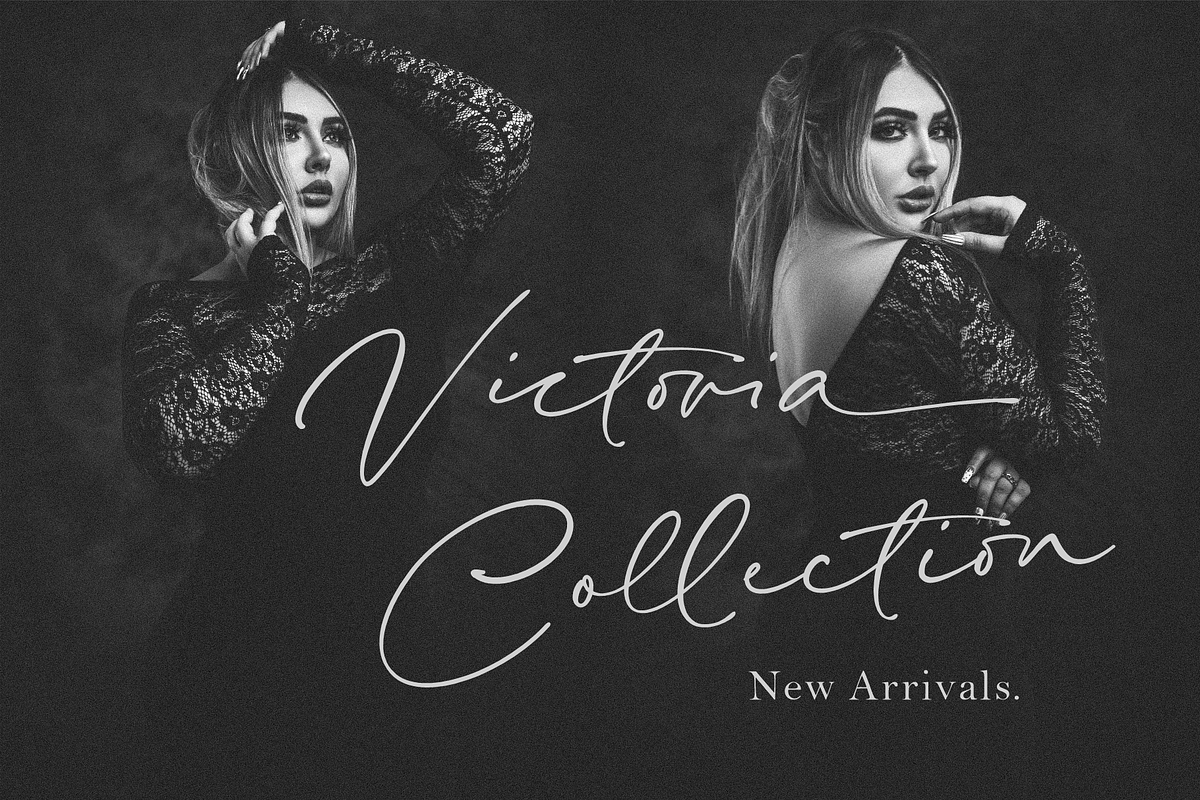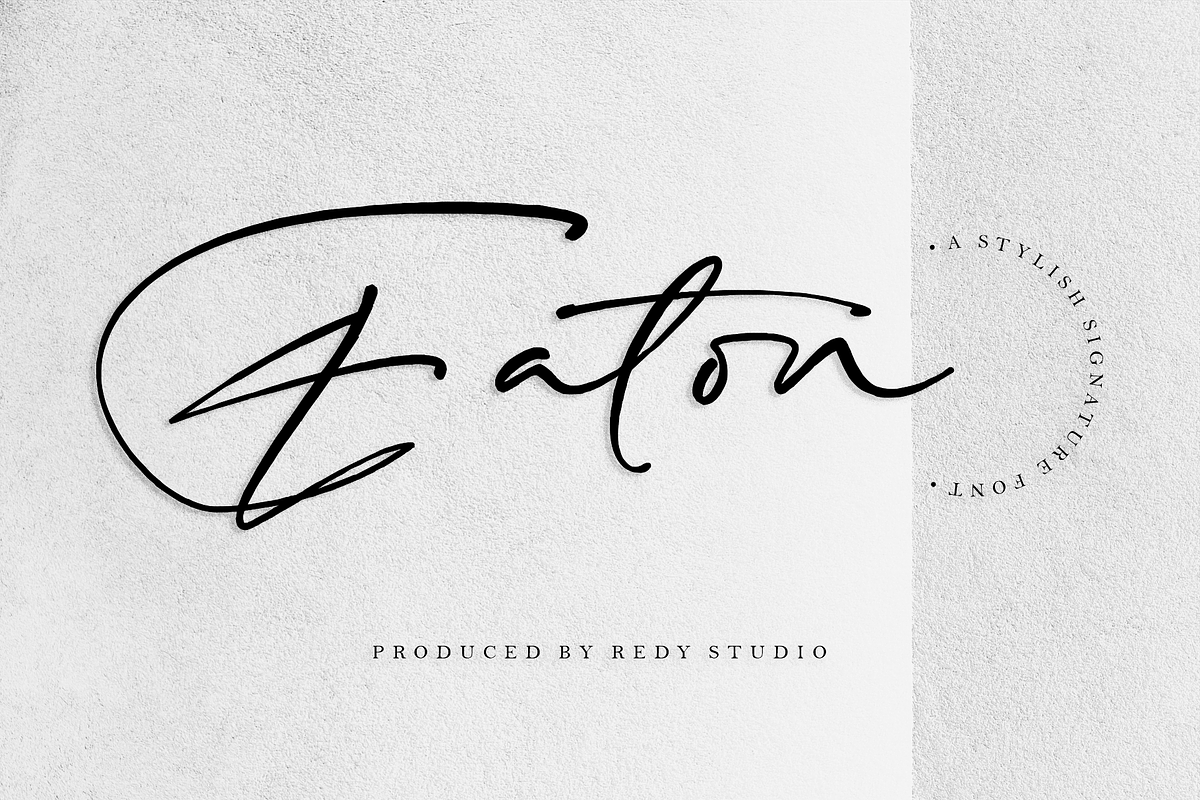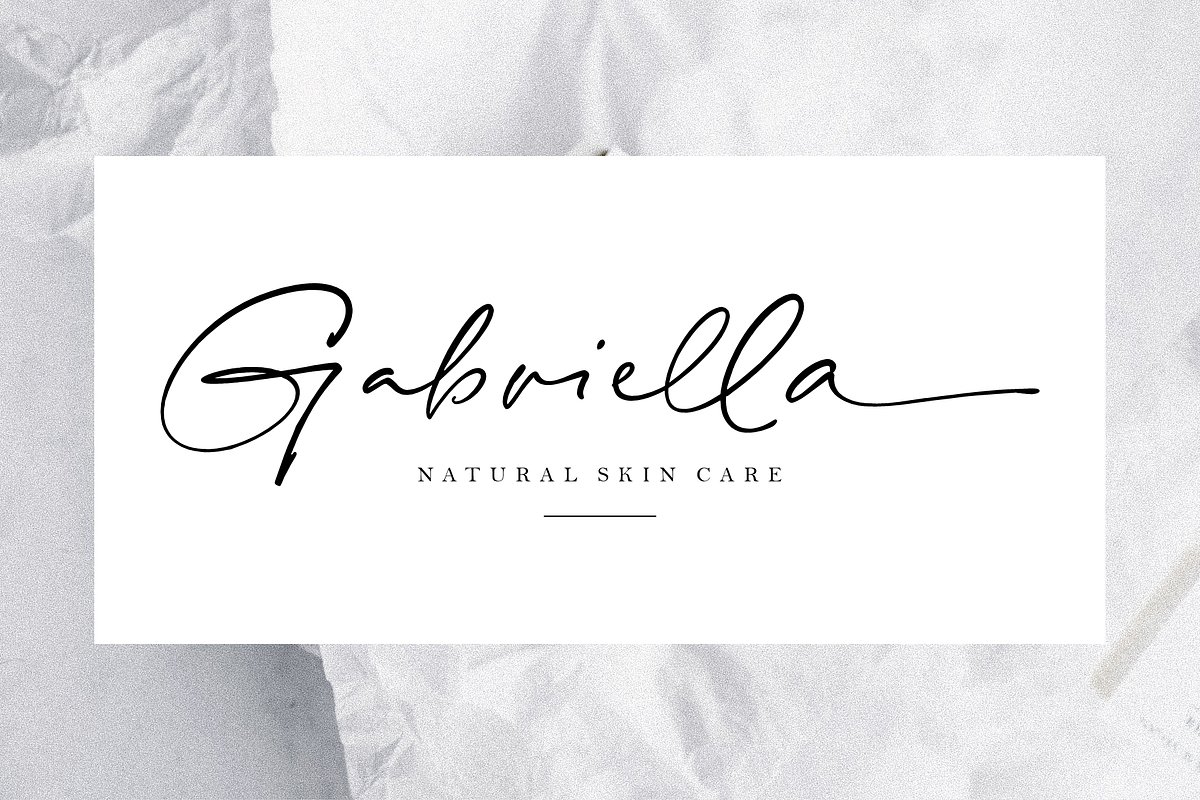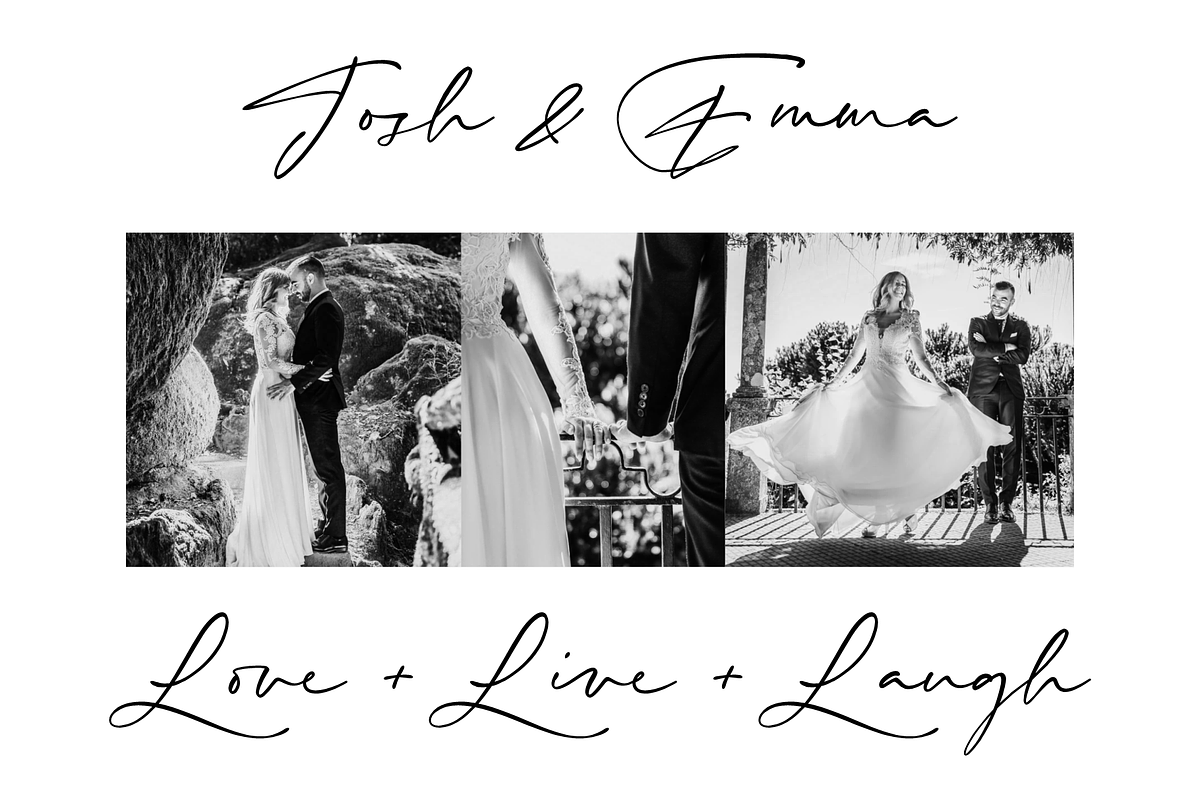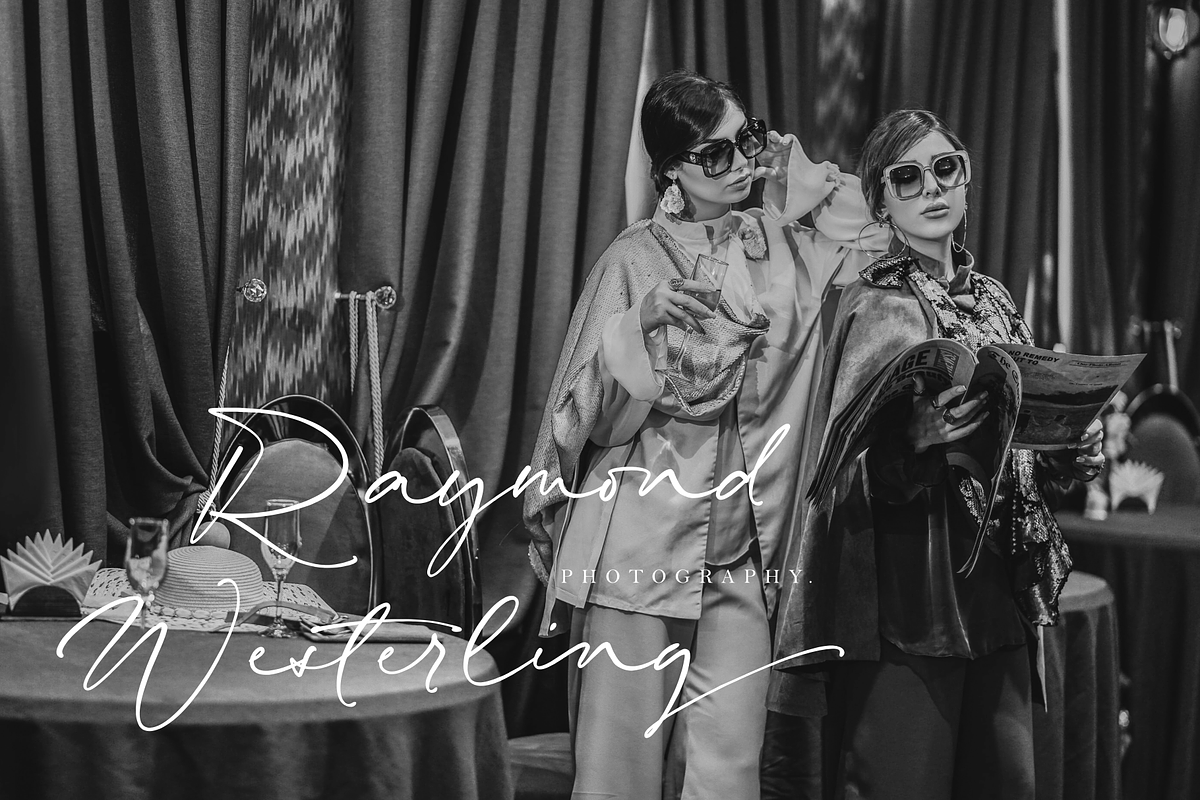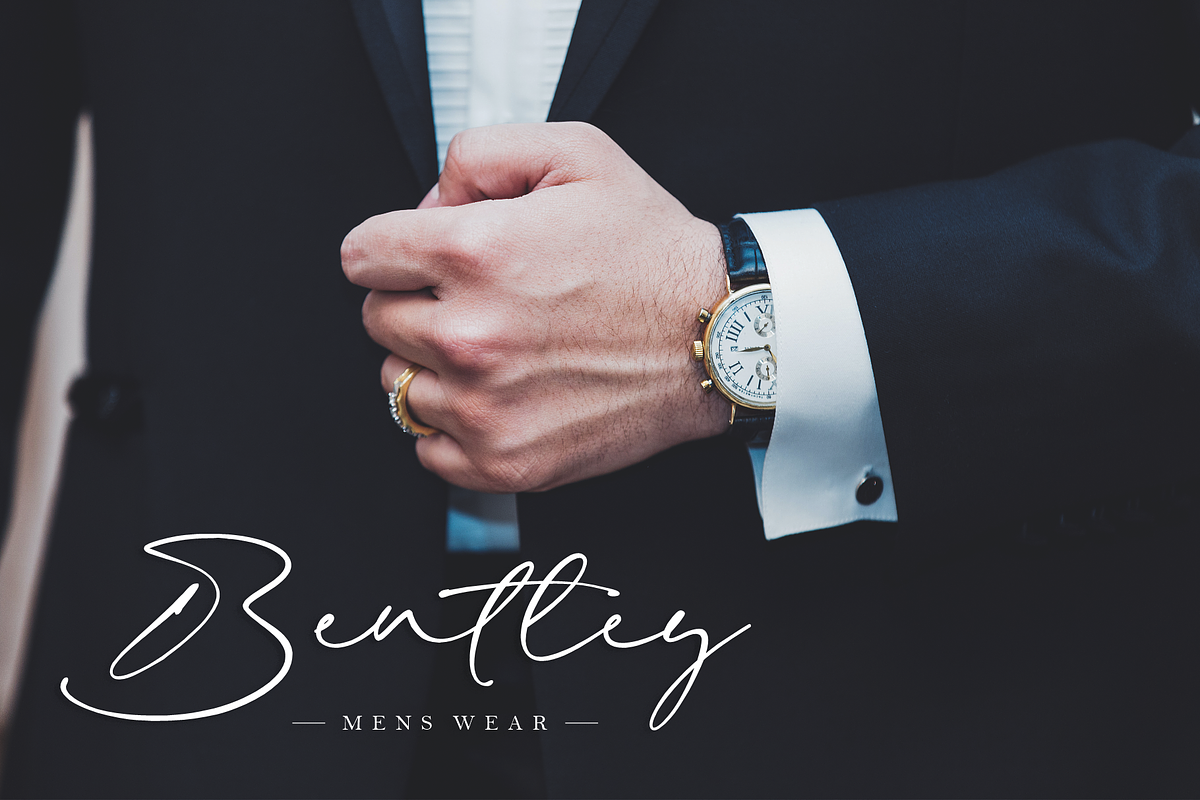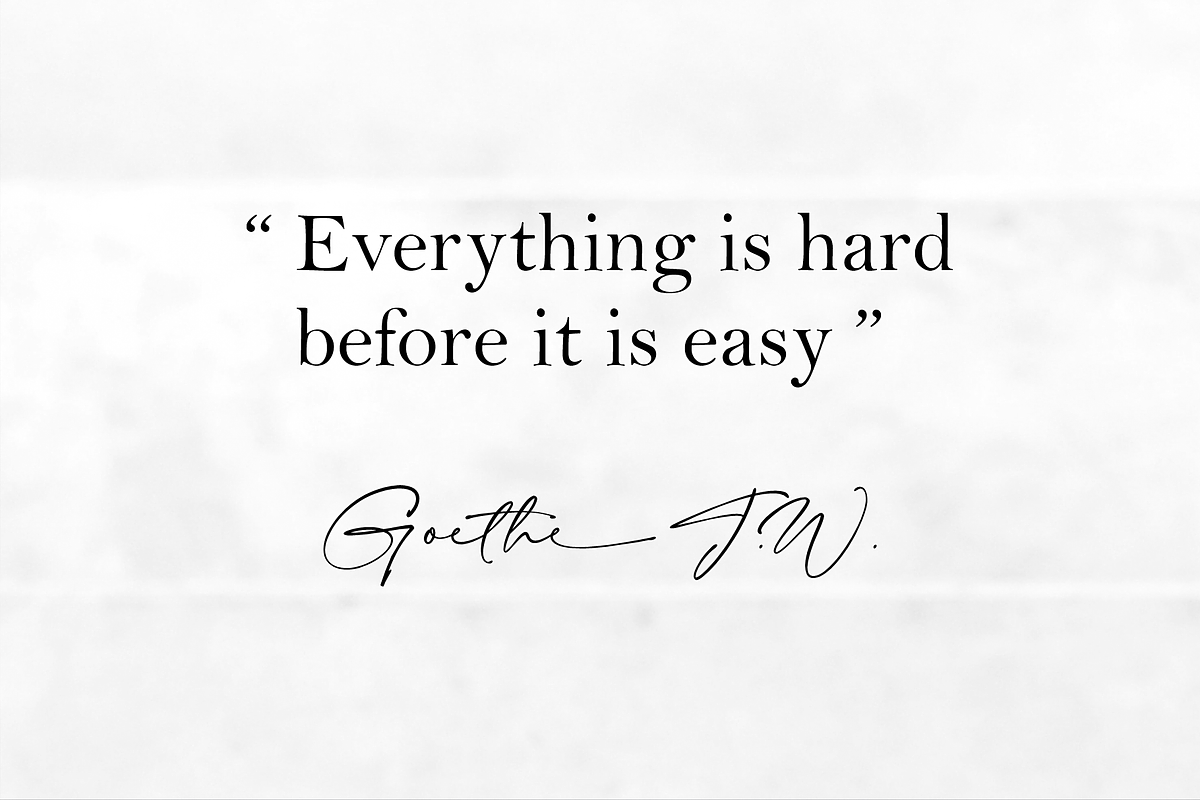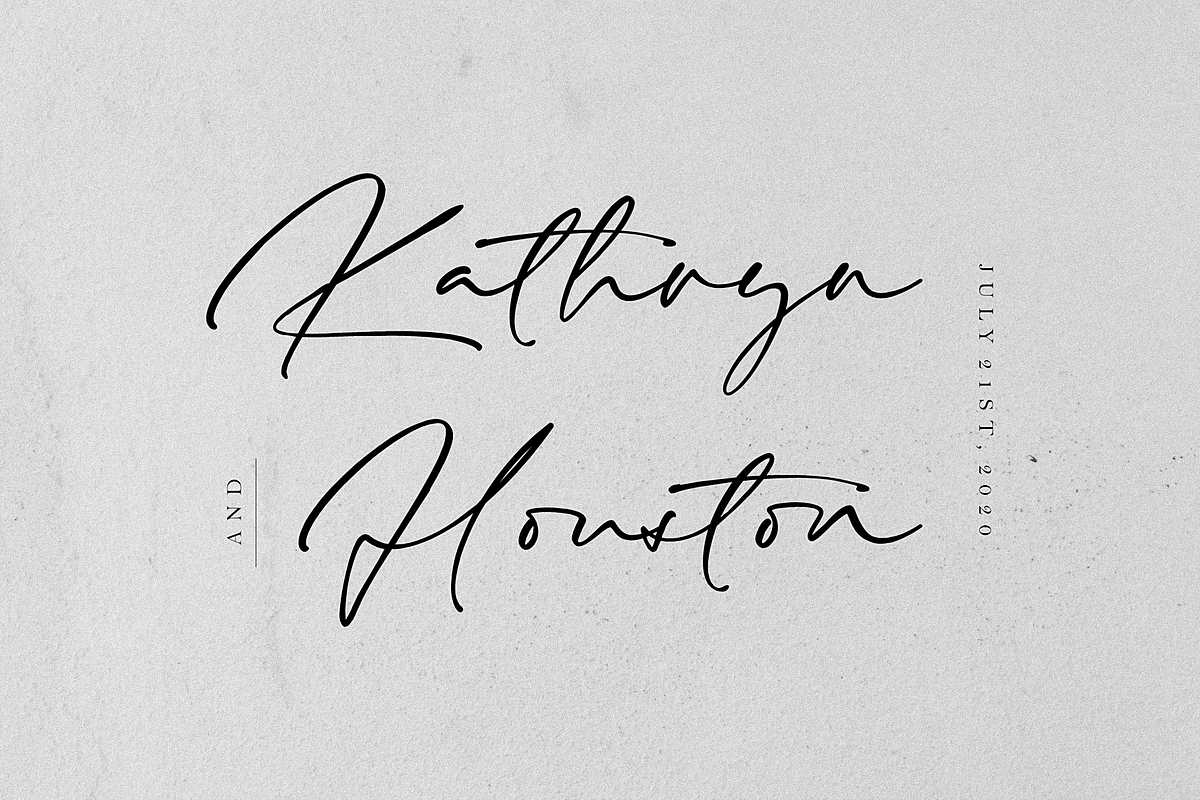
Eaton - A Signature Font
Talk a walk into Eaton. A signature font with natural free flow ligatures and ending swash to match with various visual needs. Eaton is carefully crafted to fit your ultimate typographic needs, which can bring life and freshness to your design. Great for creating signature logos and watermarks for a photography studio, headline, wedding invitation &, etc. Use with your imagination!
A full set of upper & lowercase characters
Numbers & punctuation
45 Gorgeous ligatures
Lowercase ending swashes